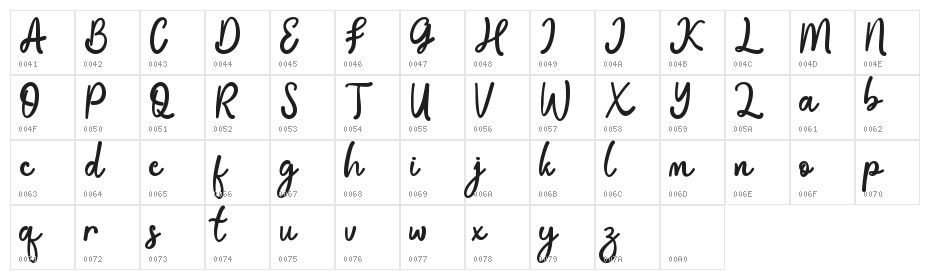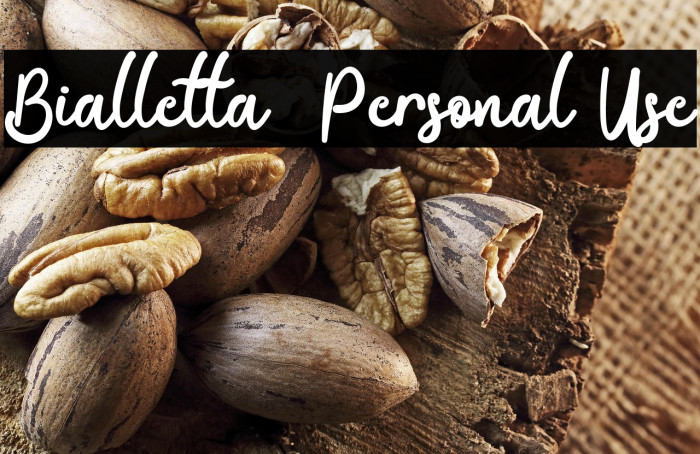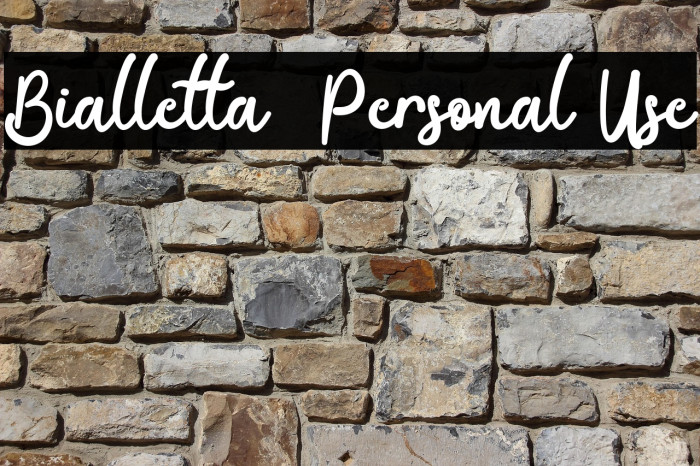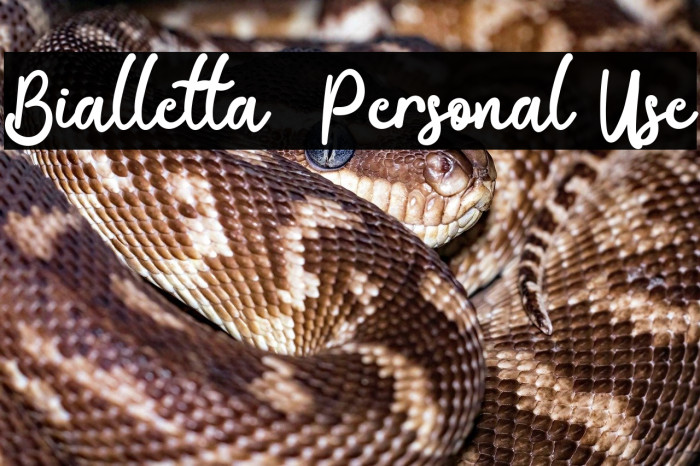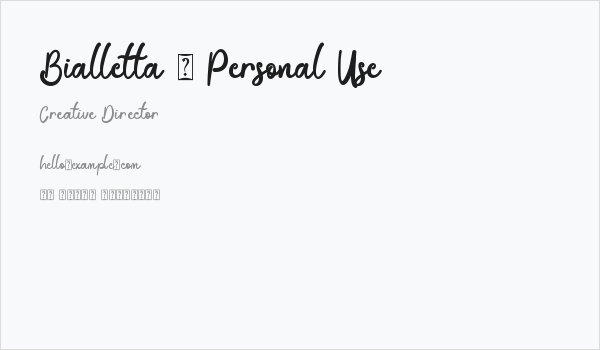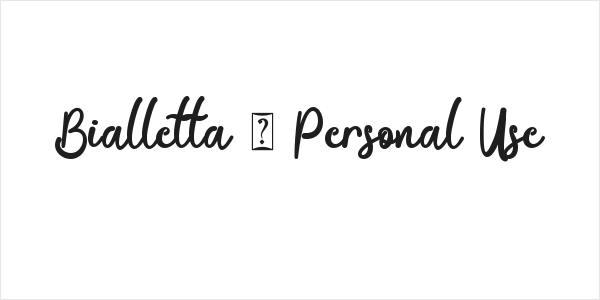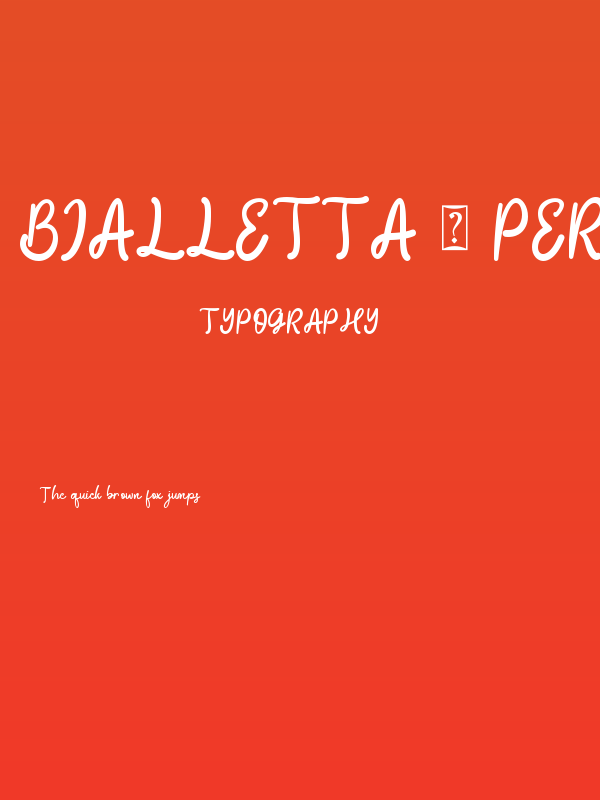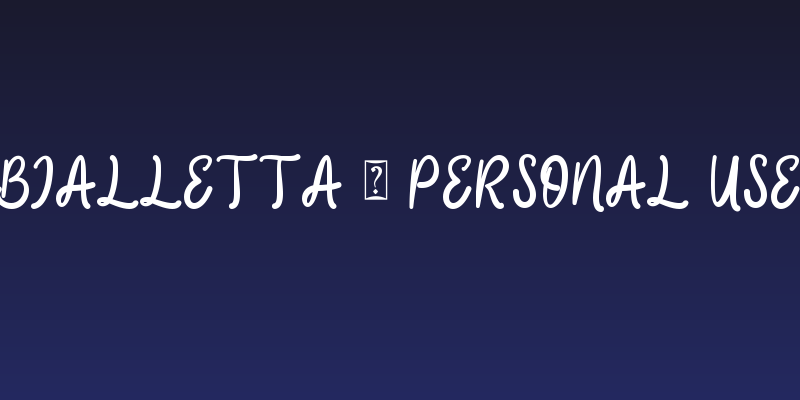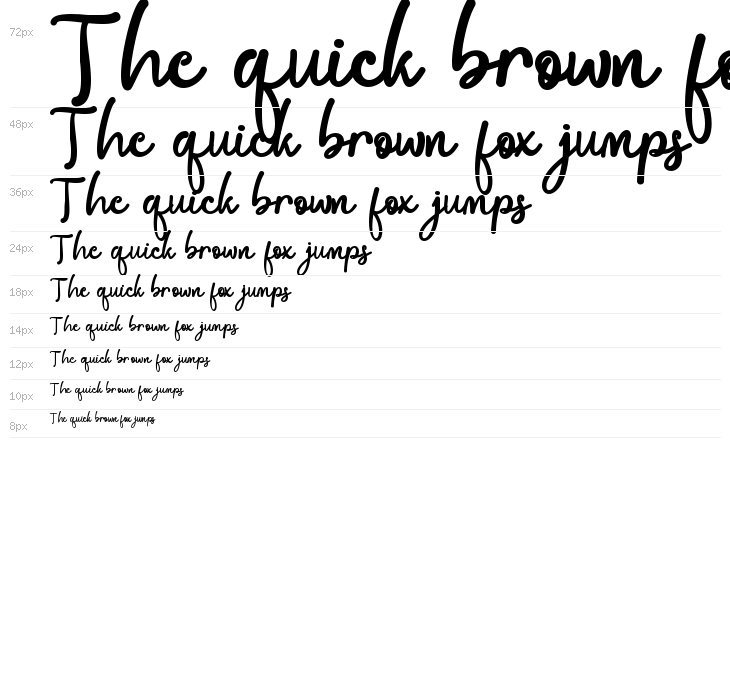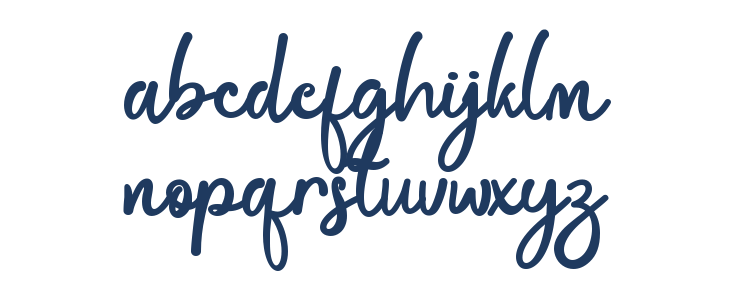
Bialletta - Personal Use Font
Bialletta - Personal Use Description
This font features a playful and flowing script style with a handwritten appearance. The uppercase letters are bold and slightly condensed, giving them a strong presence. The lowercase letters are more fluid and connected, creating a sense of movement and elegance. The strokes are consistent in thickness, providing a uniform look across all characters. The font has a casual and friendly vibe, making it suitable for creative and informal projects. Its unique style can add a personal touch to any design, making it stand out while remaining legible.
| Proposed Projects | Ideal for greeting cards, invitations, personal branding, and creative projects. |